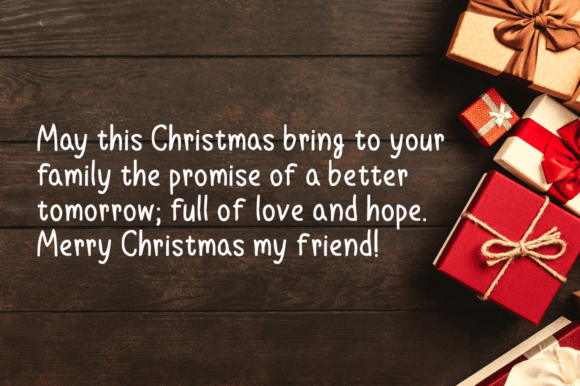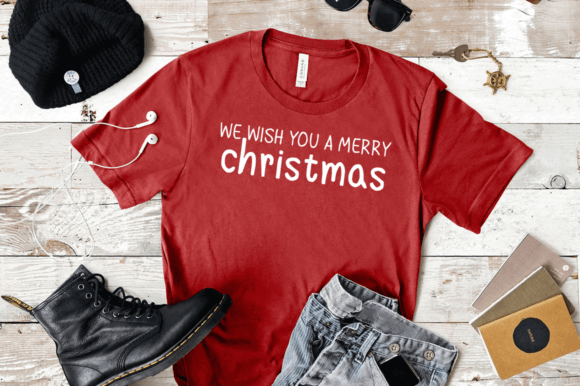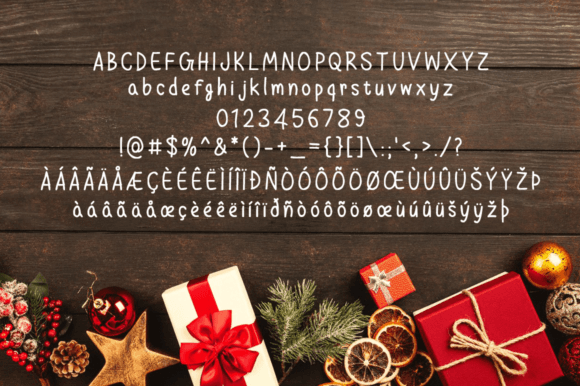
Introduction to Christmas Gladness Font
As a designer, have you ever found yourself in a creative rut, struggling to find the perfect font to bring your project to life? It’s a feeling we’ve all been there, but sometimes all it takes is one special find to get those creative juices flowing again. For me, that find was the Christmas Gladness Font – a sweet and friendly handwritten font that’s perfect for adding a touch of holiday cheer to any design.
With its natural and unique style, the Christmas Gladness Font is an incredibly versatile design resource that’s perfect for a wide range of creative projects. Whether you’re working on a high-quality brochure, a free downloadable template, or a simple social media graphic, this font is sure to bring a smile to your face and a touch of magic to your design.
Key Features of Christmas Gladness Font
- High-quality design for a creative project, perfect for holiday-themed materials
- Features a festive and cheerful design, ideal for Christmas-related projects and materials
Honest Review: Christmas Gladness Font
I recently came across the Christmas Gladness Font, and I must say it’s a great addition to my collection of design resources. As a designer, I appreciate high-quality fonts that can elevate a creative project to the next level.
One of the things I love about this font is its playful and festive feel, making it perfect for holiday-themed designs. The Christmas Gladness Font is available for free download, which is a huge plus in my book. The font itself is also fully customizable, allowing me to experiment with different colors and styles to suit my design needs.
Here are some of the things that work well for me:
- ✨ Playful and festive feel, perfect for holiday-themed designs
- ✨ Fully customizable, allowing for endless design possibilities
- ⚠️ Limited character set, which may not be suitable for longer text-based designs
- ⚠️ Not ideal for use in small font sizes, as the details may get lost
Overall, I’m impressed with the Christmas Gladness Font, and I would definitely recommend it to fellow designers looking for a fun and festive font for their creative projects. Just be sure to keep the limitations in mind when using it in your designs.
Tips and Best Practices
To get the most out of the Christmas Gladness Font, experiment with different font sizes, colors, and combinations to find the perfect look for your project. This versatile font is ideal for creating eye-catching designs, from holiday cards to social media graphics.
The Christmas Gladness Font is perfect for a variety of creative projects, including holiday cards, gift tags, social media graphics, and more. Its unique design and transparent background make it an excellent choice for adding a touch of festive cheer to your designs.